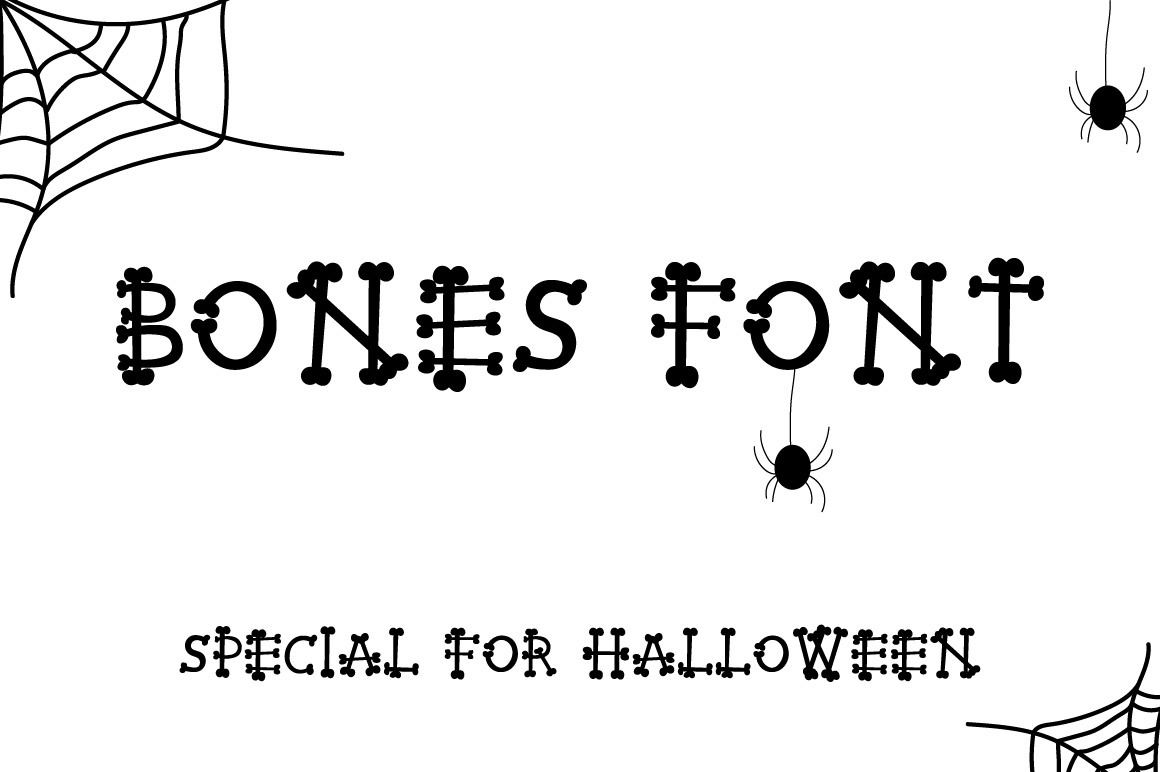
BONES HALLOWEEN FONT
The font is suitable for a Halloween theme. Bones Font can be used on T-shirts, invitations, greeting cards, and more. Application as heading or main font. The font represents the spirit of Halloween.